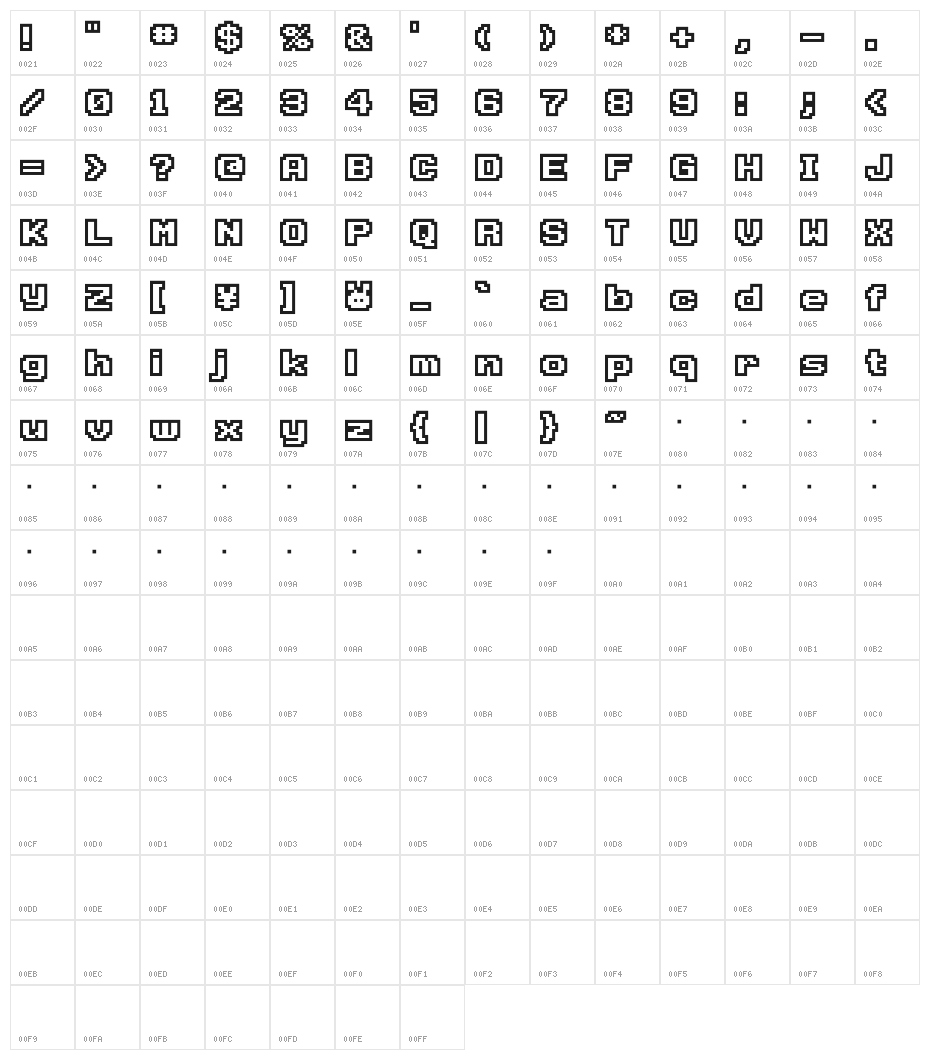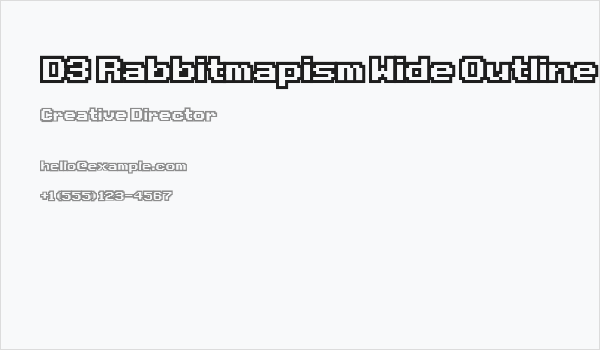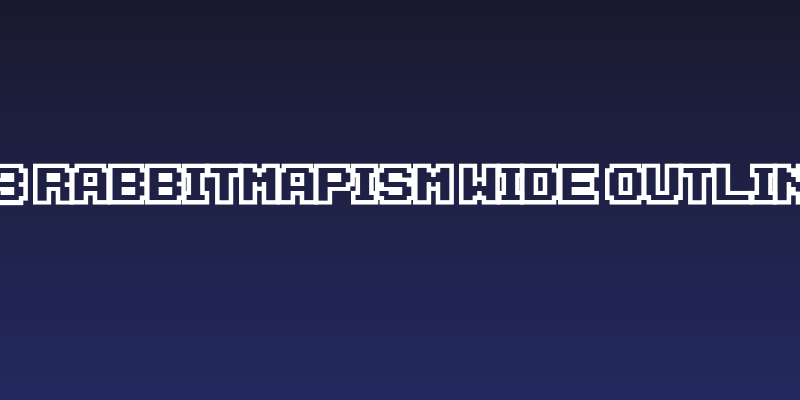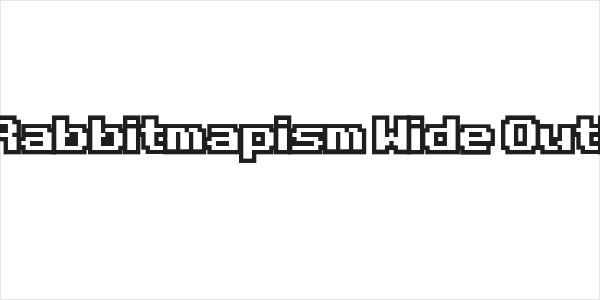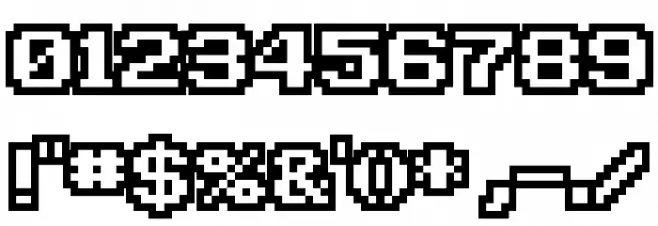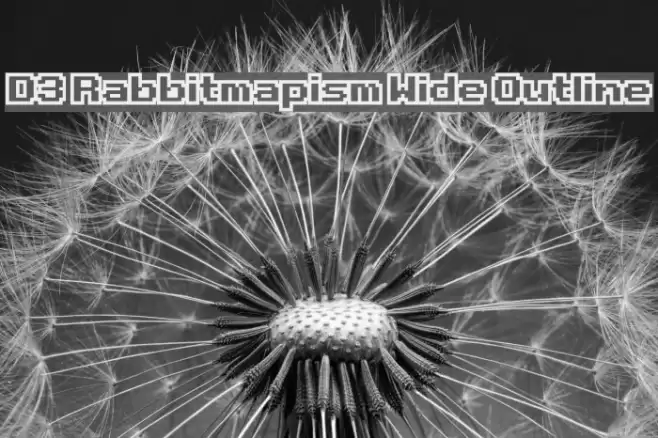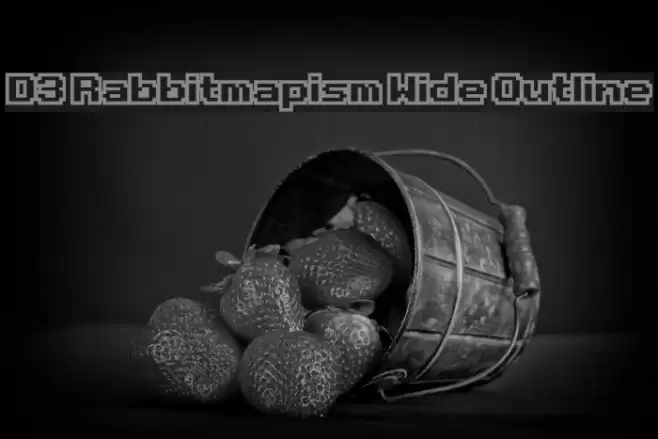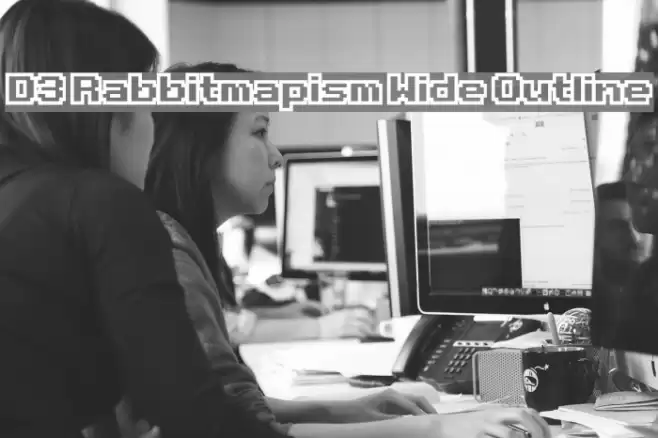
D3 Rabbitmapism Wide Outline Font
D3 Rabbitmapism Wide Outline Description
This font features a bold, pixelated outline style that gives it a distinct, retro video game aesthetic. The characters are blocky and geometric, with a uniform thickness throughout the strokes, creating a cohesive and structured appearance. The uppercase and lowercase letters maintain a consistent height, enhancing readability while preserving the unique style. Numbers and special characters are designed with the same pixelated outline, ensuring a harmonious look across all elements. This font is ideal for projects that require a nostalgic or playful touch, such as game design, posters, or digital art.
| Overall Style | Retro, Playful |
| Proposed Projects | Ideal for retro video game designs, digital art, posters, and playful branding. |